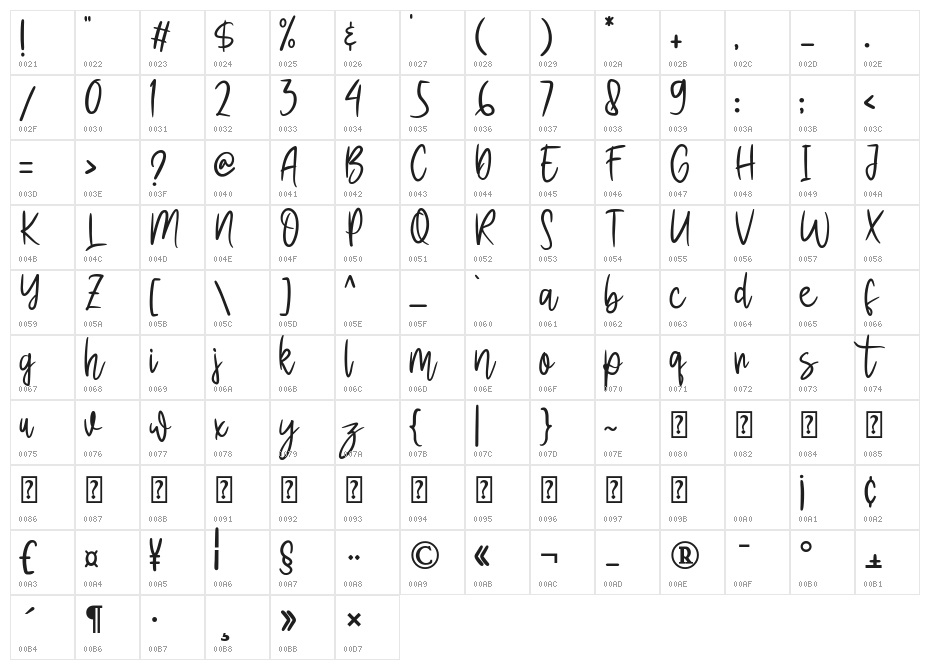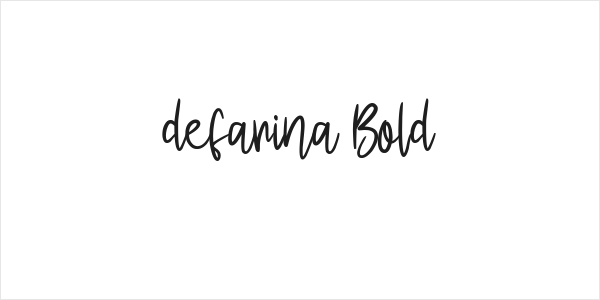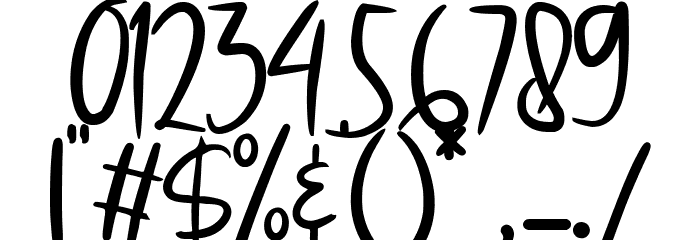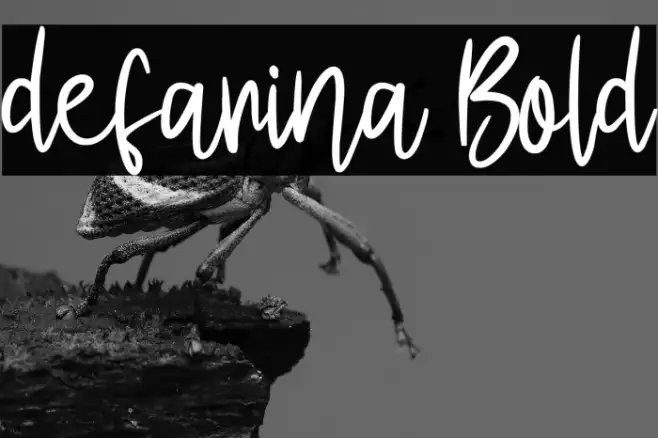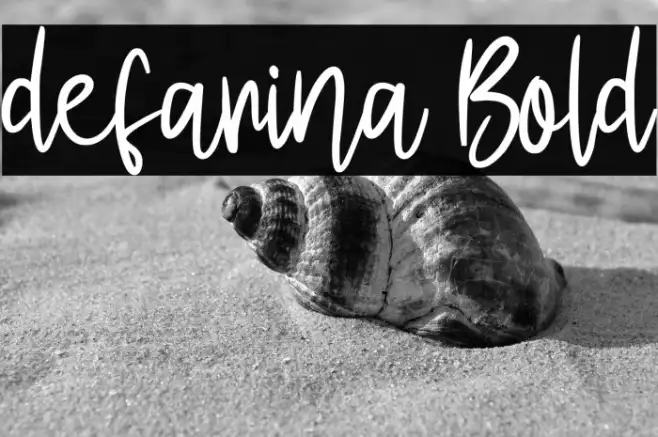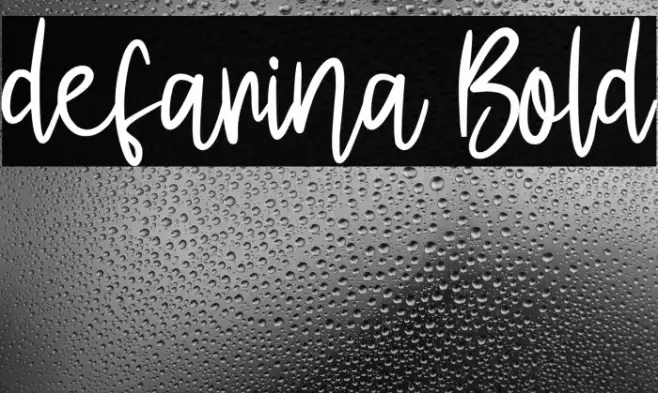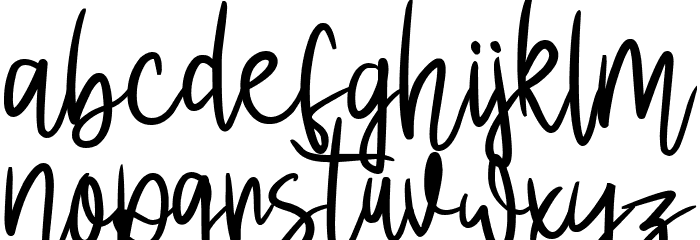
defarina Bold Font
defarina Bold Description
This font features a bold, handwritten style with a playful and energetic appearance. The letters are characterized by their fluid, cursive strokes that give a sense of motion and personality. The uppercase and lowercase letters maintain a consistent style, with elongated ascenders and descenders that add to the font's dynamic look. The numbers and special characters are designed to match the overall aesthetic, ensuring a cohesive appearance across all text elements. This font is ideal for projects that require a personal touch or a casual, friendly vibe.